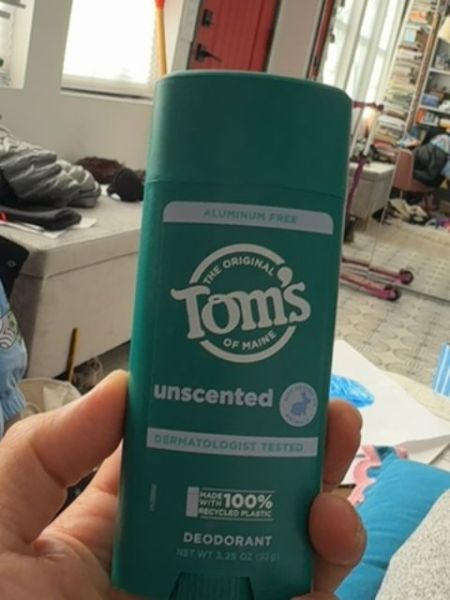
Tom's of Maine Unscented Deodorant
A personal care product designed to prevent body odor without added fragrance. It is suited for people seeking a natural and unscented deodorant option.
The typography on the packaging uses a friendly, casual serif font for the brand name 'Tom's,' giving it an approachable and trustworthy feel. The other text elements, such as 'unscented' and 'aluminum-free,' are set in a clean, modern sans-serif font that ensures readability and emphasizes clarity.
The packaging is a compact, cylindrical container in a teal color, which is easy to hold and store. It is designed with sustainability in mind, using 100% recycled plastic, emphasizing the brand's commitment to the environment.